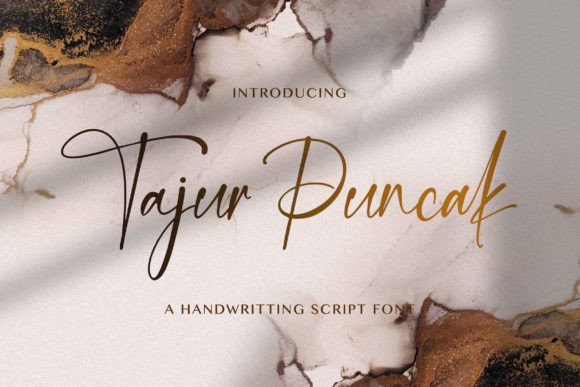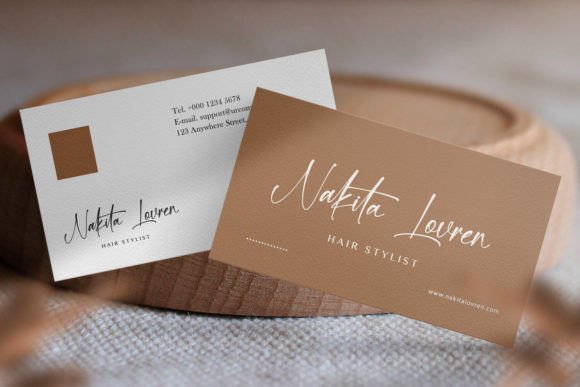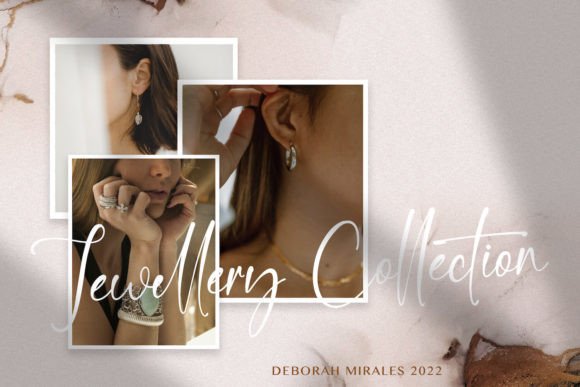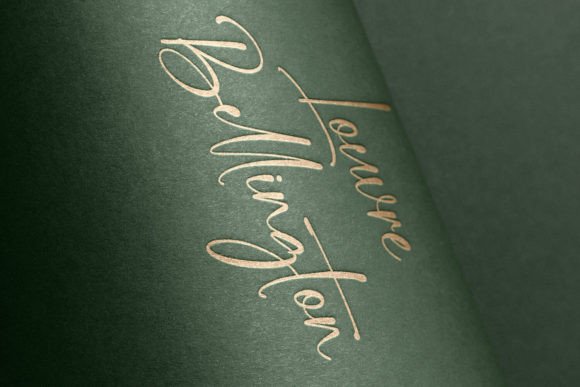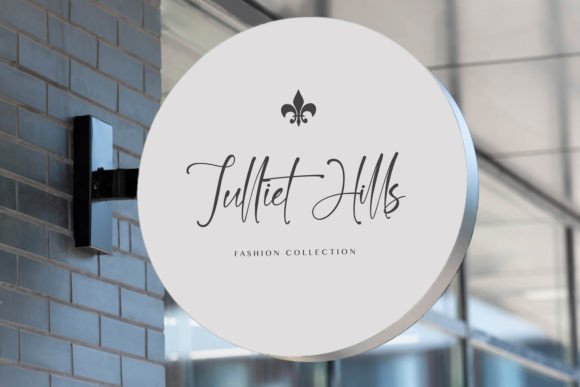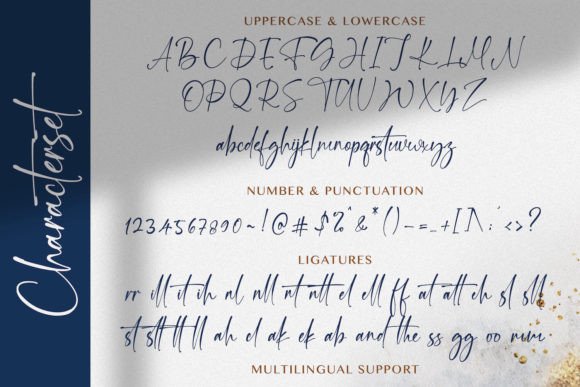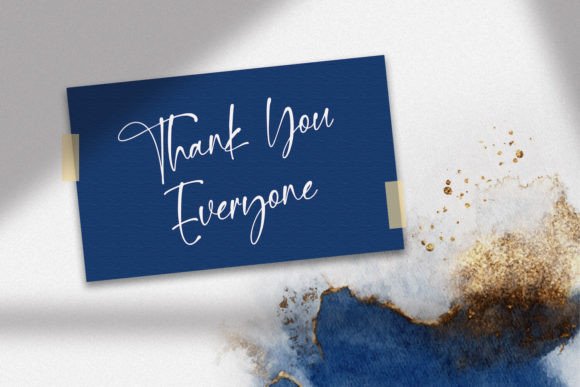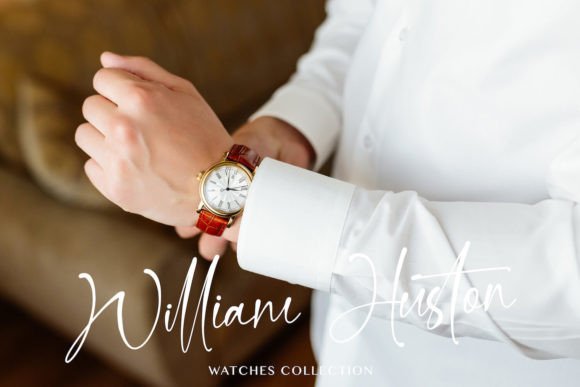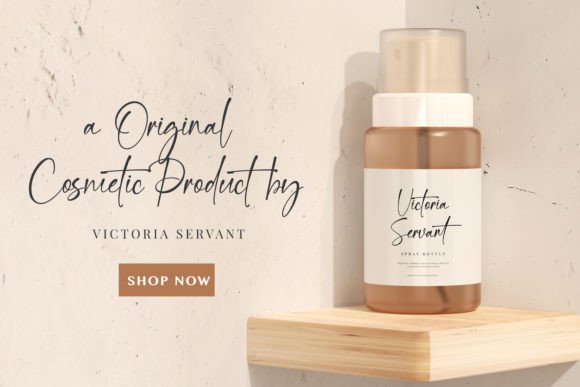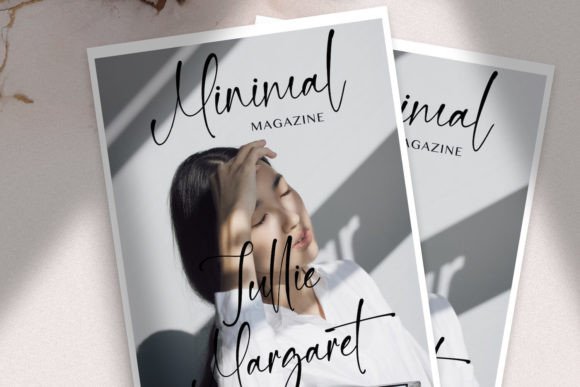
Tajur Puncak Font
Tajur Puncak Font Download – Elegant Flowing Handwritten Script
The Tajur Puncak Font download is a delicate handwritten typeface that brings elegance and beauty to your designs. With its flowing strokes and balanced letters, this font is perfect for adding charm to creative projects. Because it is so versatile, it works equally well for personal designs and professional branding.
Flowing Style of Tajur Puncak Font Download
The Tajur Puncak Font download has soft strokes and smooth curves. As a result, it feels like real handwriting while keeping a clean and stylish look. In addition, it makes text appear more creative without losing readability.
Tajur Puncak Font Download for Invitations and Cards
Wedding invitations, thank-you cards, and greeting notes shine with the Tajur PuncakFont download. Not only does it bring elegance, but it also adds a warm and personal tone. Therefore, it is ideal for projects that need a heartfelt style.
Tajur PuncakFont Download for Logos and Branding
The Tajur PuncakFont download is also great for logos, packaging, and product labels. Moreover, its graceful handwritten style gives brands a professional yet approachable identity.
Tajur PuncakFont Download in Posters and Creative Designs
You can also use the Tajur PuncakFont download in posters, banners, and digital artwork. In addition, its flowing script adapts well across both print and web formats.
Readability of Tajur PuncakFont Download
Some handwritten fonts may look stylish but hard to read. However, the Tajur PuncakFont download balances beauty with clarity. As a result, it is easy to use in both titles and smaller details.
Why Choose Tajur PuncakFont Download for Your Projects?
The Tajur PuncakFont download is flexible, simple, and full of charm. In other words, it works well for personal creative work and professional branding. Finally, it is a font that adds elegance to every design.